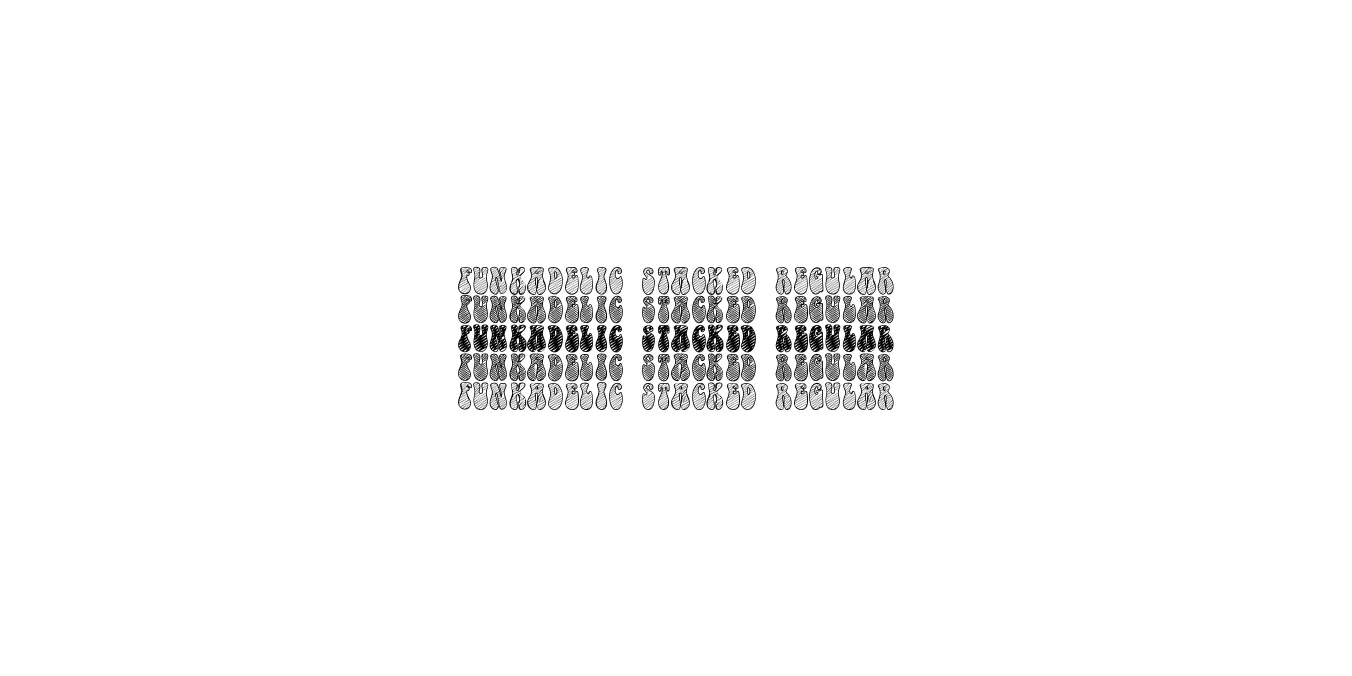
Funkadelic Stacked Regular
Designed by Chequered Ink
Funkadelic Stacked Regular is a vibrant homage to the psychedelic era of the late 1960s and 1970s. Drawing inspiration from the liquid lettering found on classic funk album covers and concert posters, this font features a distinct 'stacked' effect that gives it depth and motion. The design is characterized by its heavy weight and flowing, organic curves, making it a standout choice for projects that need to convey energy, movement, and nostalgia.
Today, the font remains popular among digital designers looking to replicate a retro aesthetic with a modern twist. Its bold, layered appearance works exceptionally well in high-contrast color palettes, allowing for striking visual compositions in both print and digital media. Whether used for branding a vintage-themed cafe or creating high-impact social media graphics, Funkadelic Stacked Regular provides a unique blend of historical charm and contemporary playfulness.
Funkadelic Stacked Regular Best Uses
Perfect for funk, soul, and psychedelic rock album covers or festival posters.
Ideal for bold statement T-shirts and retro-style streetwear branding.
Excellent for creating eye-catching headlines and high-energy Instagram graphics.